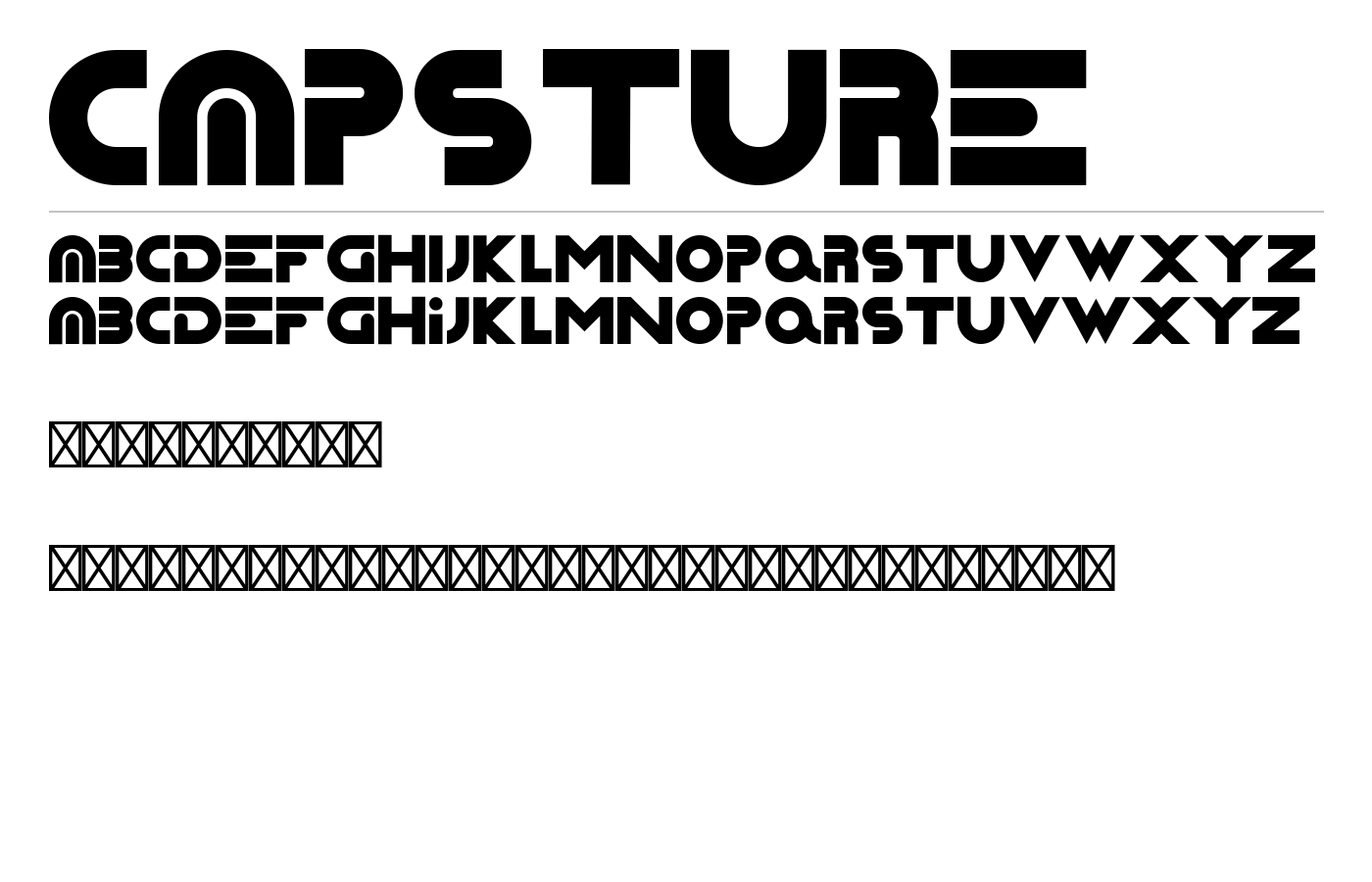
Capsture is a bold, geometric sans serif typeface with a futuristic and experimental vibe, characterized by its thick strokes, high contrast between solid and open spaces, and unique letter shapes featuring sharp angles and rounded terminals. Its uppercase-only design and strong, compact structure make it ideal for impactful headlines, logos, and modern branding that seeks to convey innovation and boldness. This font works best in creative projects where a striking, contemporary look is desired to capture immediate attention.
Capsture Font
About Capsture Font